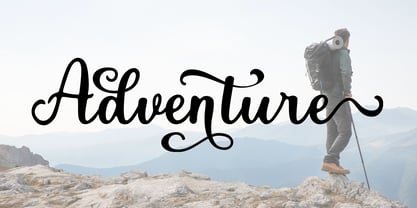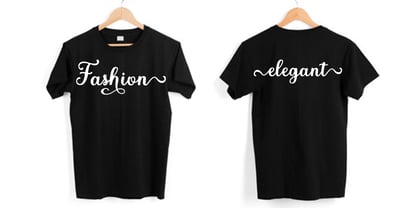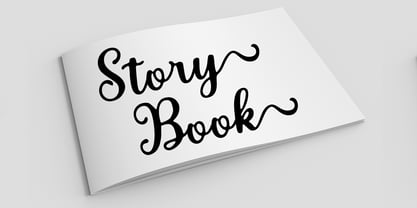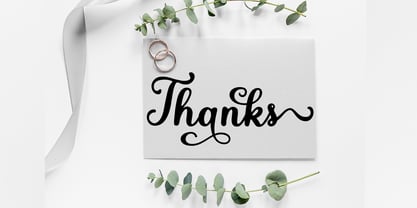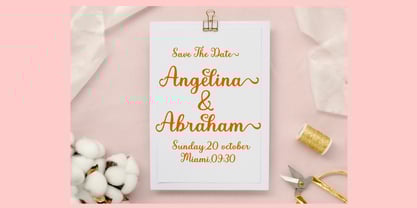
Gatiyah
by Shape Studio
The Gatiyah Font Family was designed by Teuku Saifullah and published by Shape Studio. Gatiyah contains 1 styles.
Gatiyah Script is a modern calligraphy design, including Regular. This font is casual and beautiful with swash. Can be used for various purposes. such as logos, product packaging, wedding invitations, branding, headlines, signage, labels, signatures, book covers, posters, quotes, and more.
Designers: Teuku Saifullah
Publisher: Shape Studio
Foundry: Shape Studio
Design Owner: Shape Studio